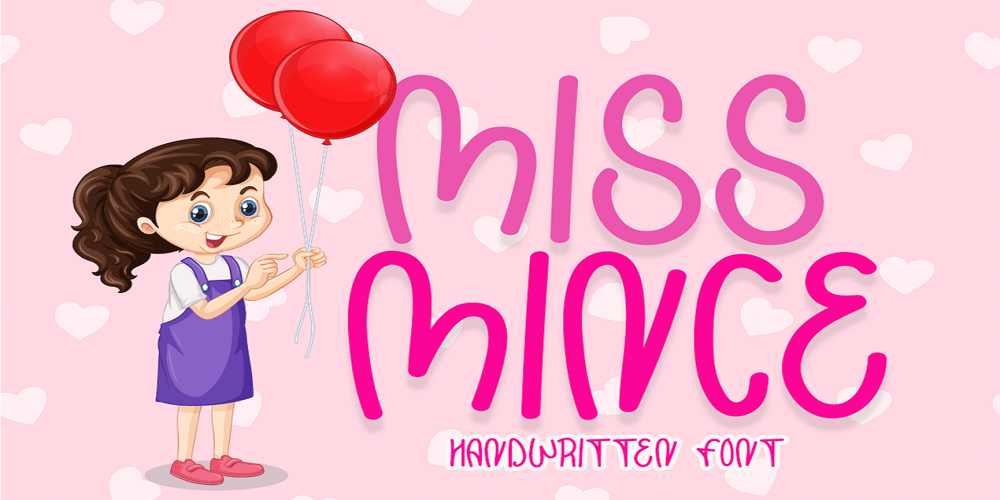
Miss Mince
Miss Mince font
Miss Mince Font Family was designed by Saiful Anwar and published by Sealoung. Miss Mince contains 1 styles and family package options. Miss Minceis a flowing handwritten font, described by an elegant touch, perfect for your favorite projects. Fall in love with its incredibly distinct and timeless style and use it to create spectacular designs!